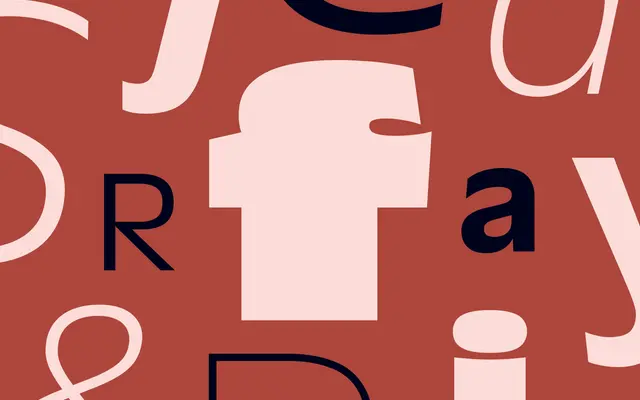
Fraise
Dalton Maag · Pablo Bosch · 2024
Fraise specimen from Dalton Maag
A humanist sans by Pablo Bosch inspired by Roger Excoffon, with a tall x-height, distinctive round shapes and a Weight axis that runs from text to display, awarded by Communication Arts.
A humanist sans by Pablo Bosch that nods to Roger Excoffon's mid-century work, with a tall x-height and distinctive round shapes that give the family its character. Ten weights run from Hairline to Ultra with matching italics, and a 2-axis variable font handles Weight and Italic. Suited to a wide stretch of brand and editorial work, from running text to confident display, and recognised with a Communication Arts Award of Excellence.
Dalton Maag describe Fraise as a fresh and fruity humanist sans with a tall x-height and distinctive round shapes, inspired by the work of Roger Excoffon, with a Weight axis from body text to display.